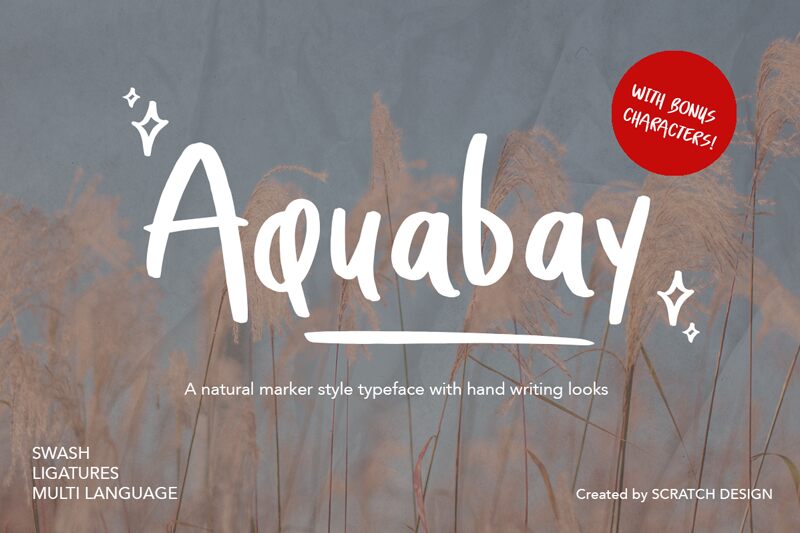
Aquabay, a captivating casual handwritten font designed by Scratch Design, exudes a captivating blend of effortless elegance and whimsical charm. With its organic, free-flowing strokes and a touch of natural imperfection, this font creates an inviting, handcrafted aesthetic that immediately draws the viewer in. The fluid, expressive letterforms and subtle variations lend a sense of personality and authenticity, evoking a warm, approachable atmosphere.
Aquabay's versatility makes it a versatile choice for a wide range of design applications, from branding and packaging to editorial layouts and social media content. Its casual, yet refined style lends itself seamlessly to projects seeking a personal, artisanal touch, whether it's a rustic wedding invitation, a trendy product label, or a visually striking blog post. Aquabay's ability to convey a sense of authenticity and authenticity makes it an excellent option for designers looking to create designs that feel genuine and emotionally engaging.